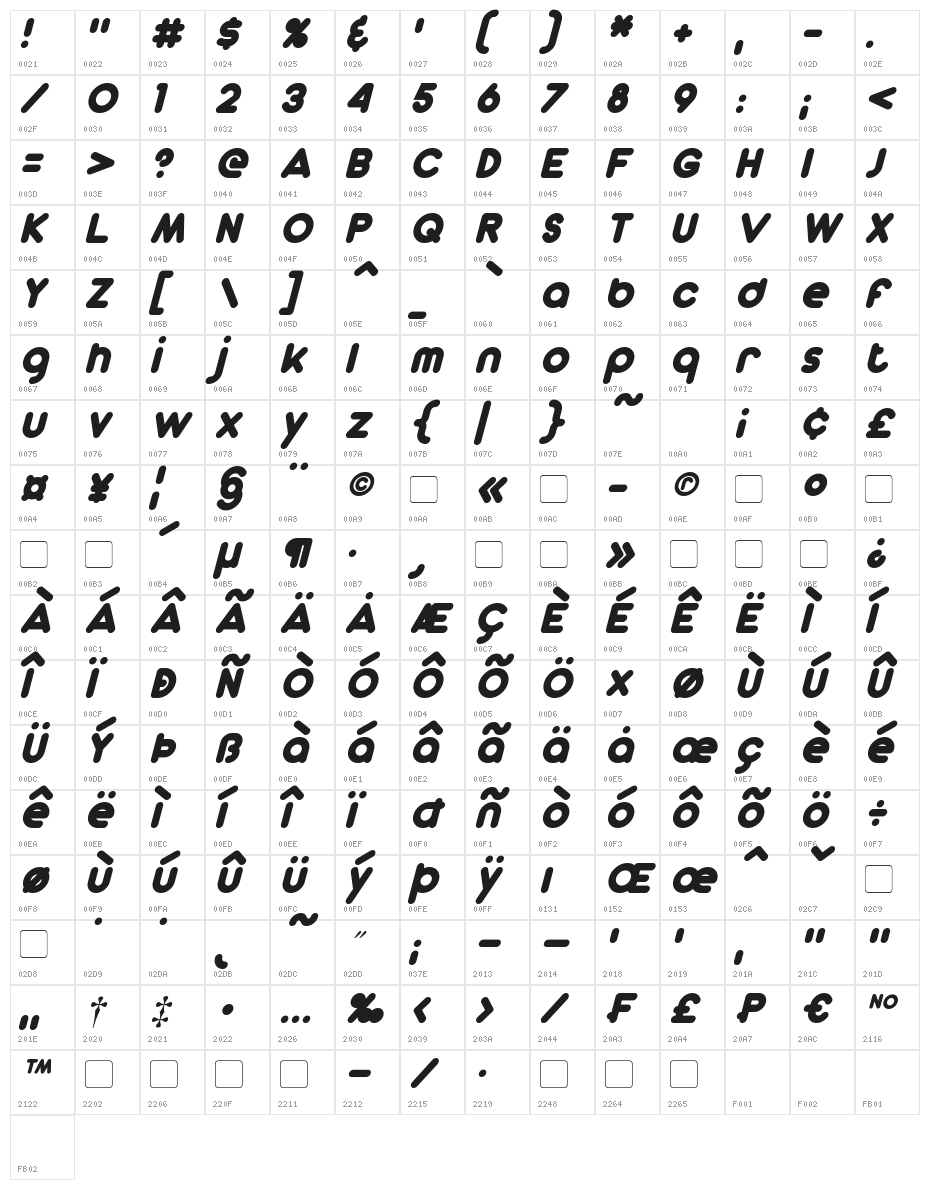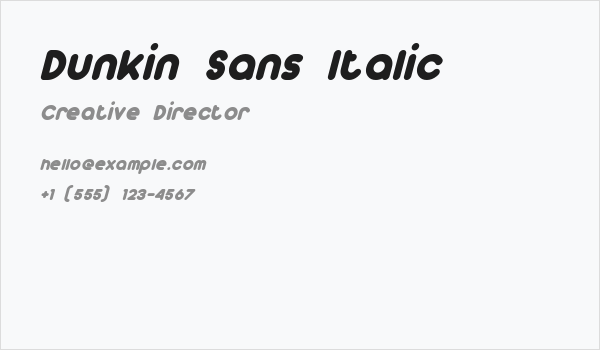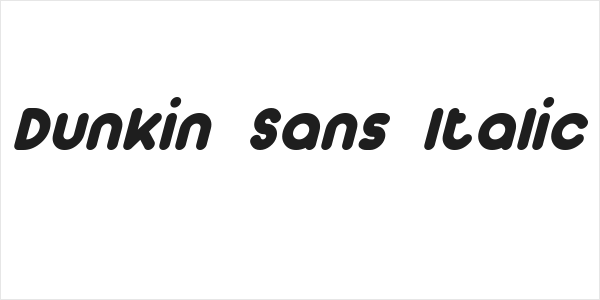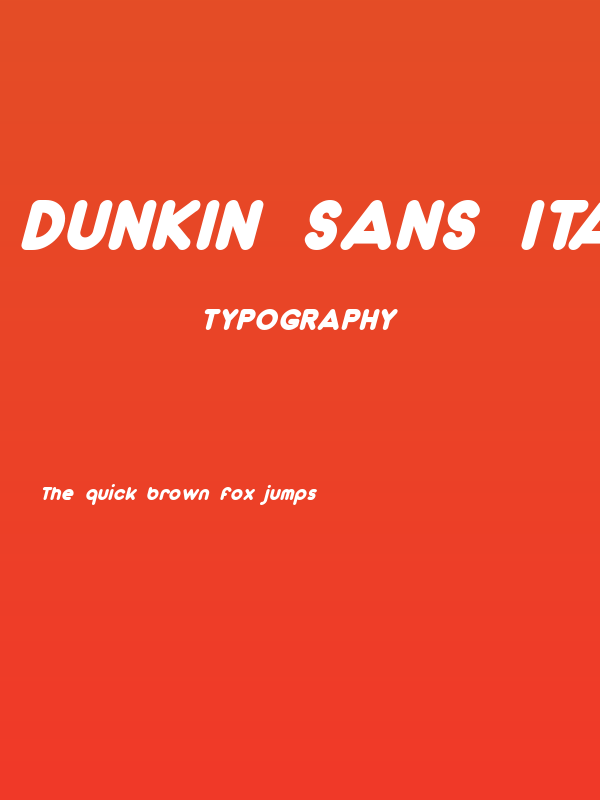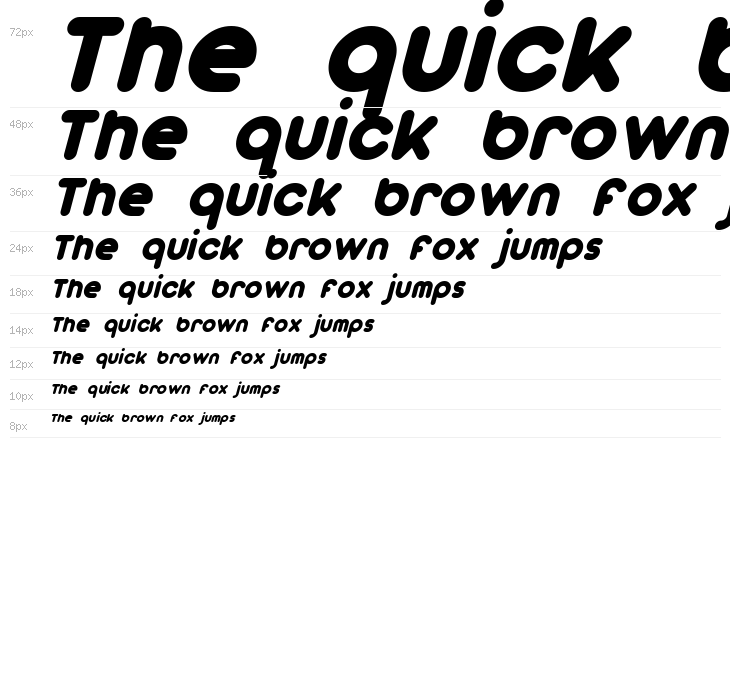
Dunkin Sans Italic Font
Dunkin Sans Italic Description
This font features a playful and bold design with rounded edges and a smooth, flowing style. The italic slant adds a dynamic and energetic feel, making it stand out in any design. The characters are well-balanced with consistent stroke thickness, giving it a cohesive appearance. The font is highly legible, even at smaller sizes, due to its clear and distinct letterforms. The numbers and special characters maintain the same playful aesthetic, ensuring uniformity across all text elements. This font is ideal for projects that require a fun and approachable look, such as branding for casual or family-oriented products.
| Proposed Projects | Ideal for branding, packaging, children's books, and playful advertising campaigns. |